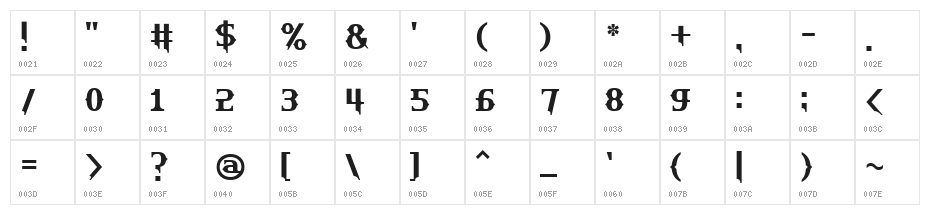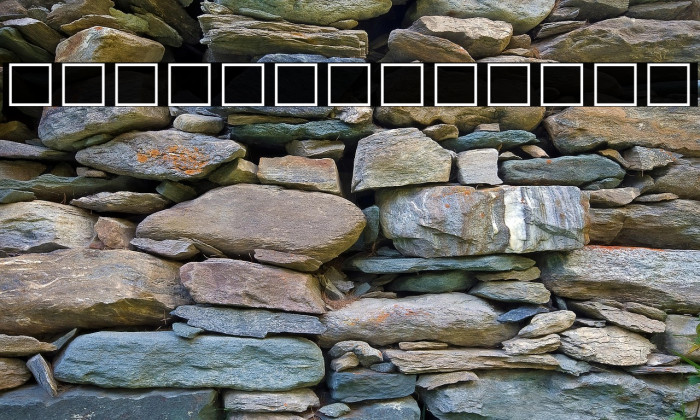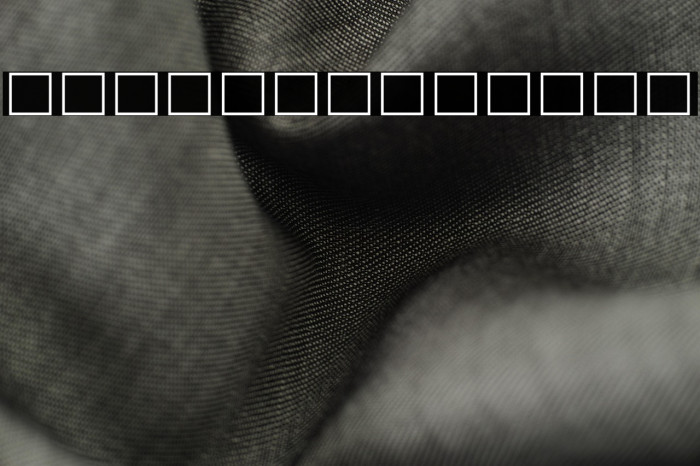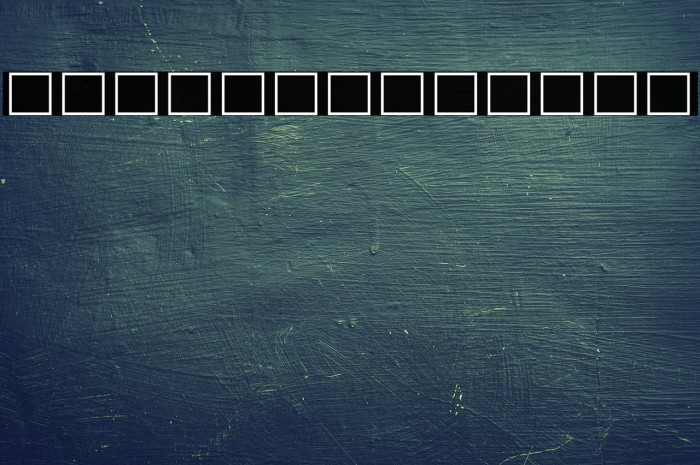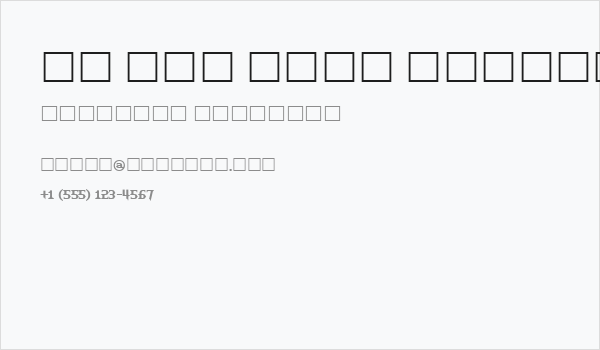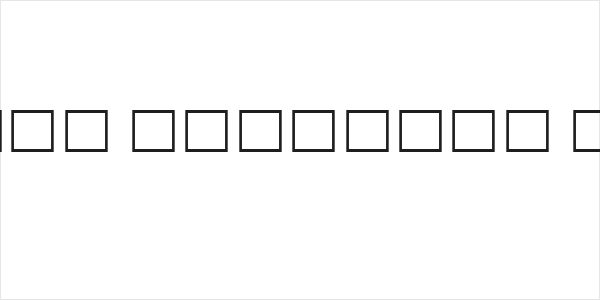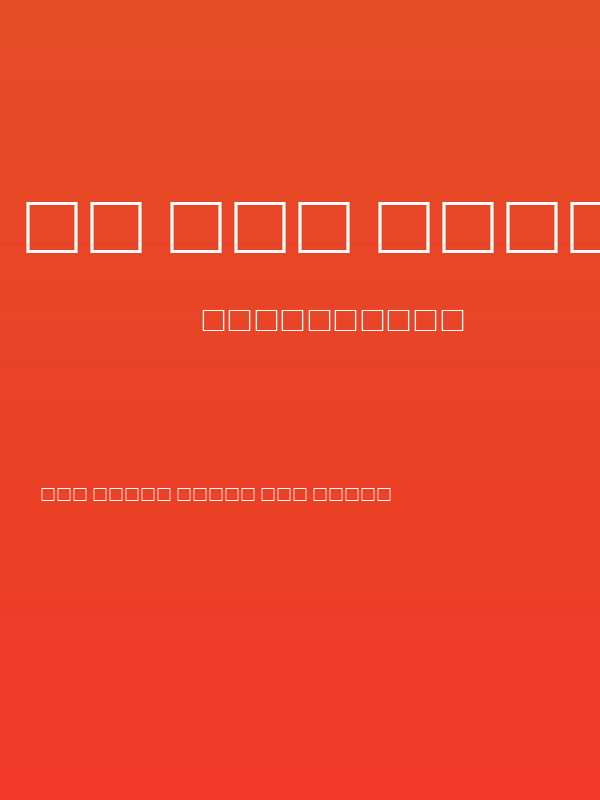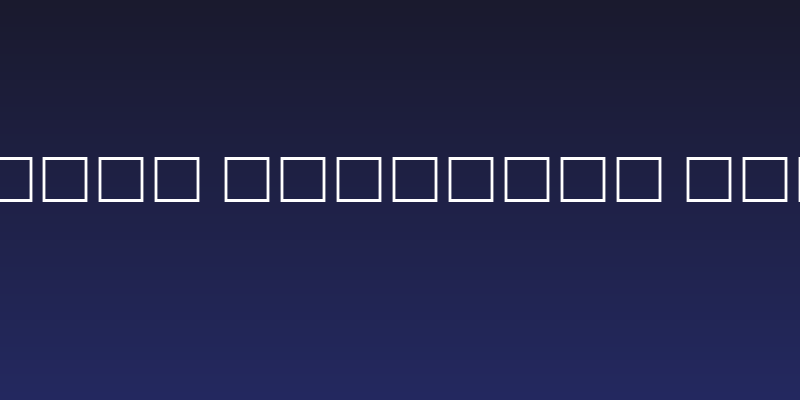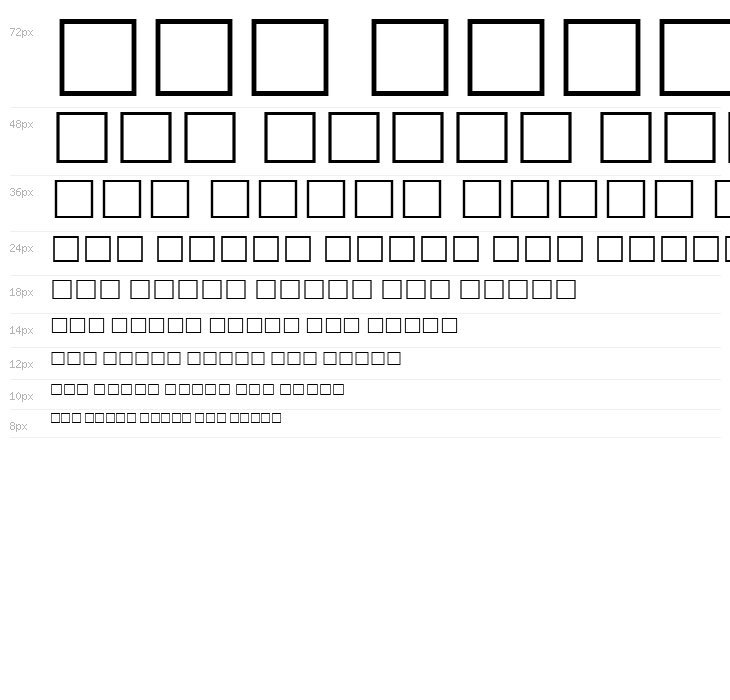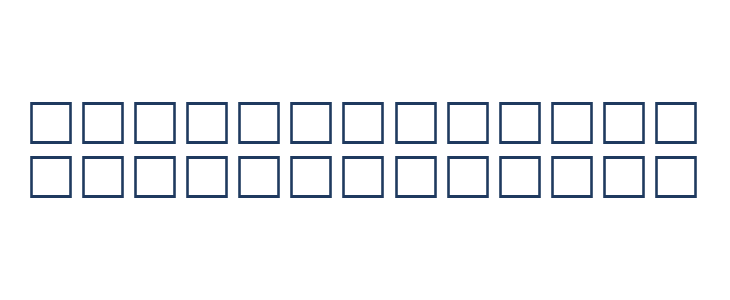
HU The Game Cyrillic SemiBold Font
HU The Game Cyrillic SemiBold Description
This font features a bold and striking design with a strong presence, characterized by thick strokes and sharp edges. The numerals are particularly distinctive, with unique curves and angles that give them a dynamic appearance. The special characters maintain the boldness and are designed to stand out, making them suitable for attention-grabbing headlines or logos. The overall style is modern with a touch of vintage flair, offering versatility for various design projects.
| Proposed Projects | Ideal for use in branding, poster design, video game graphics, and any project requiring a bold, impactful typeface. |